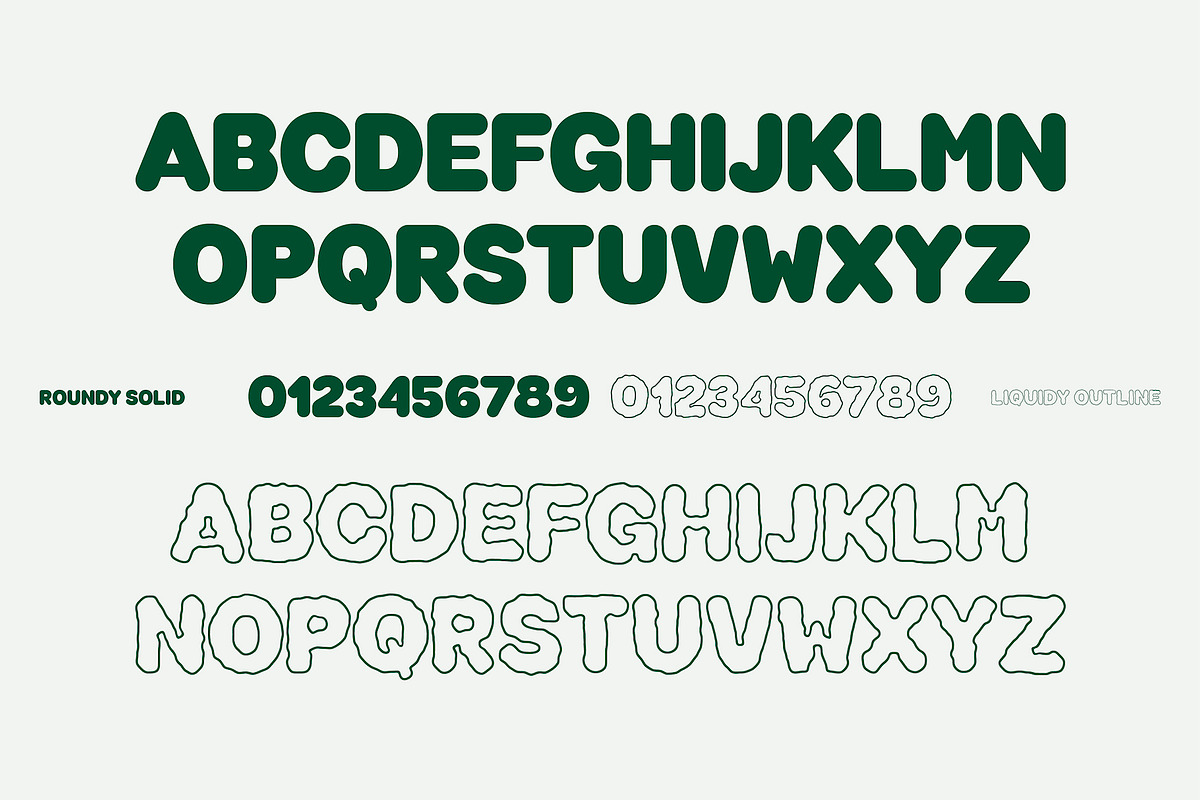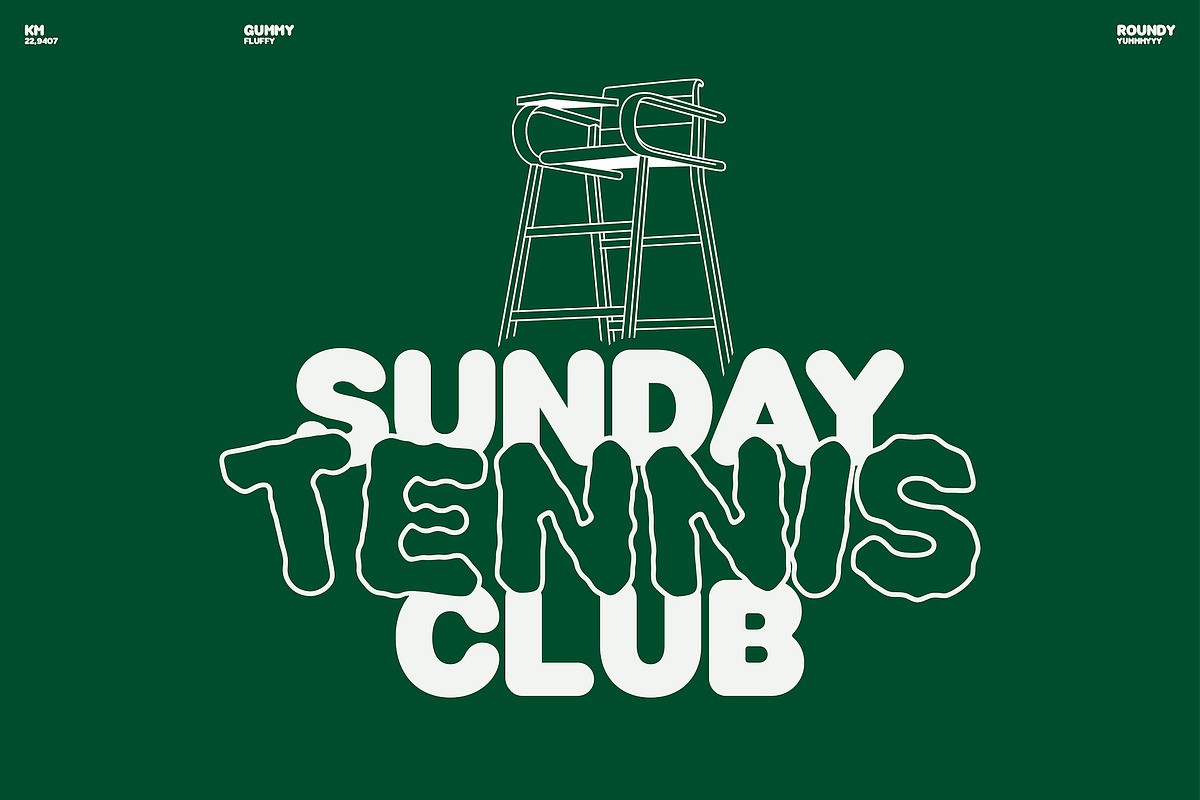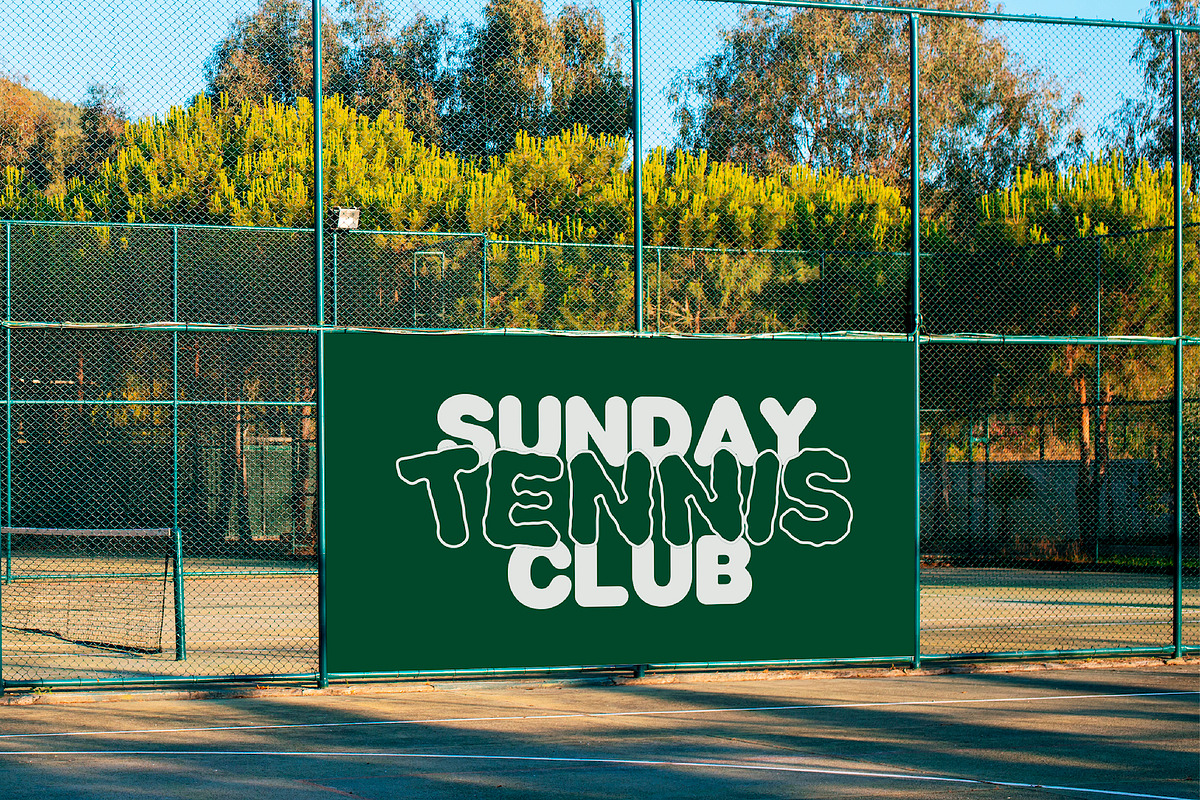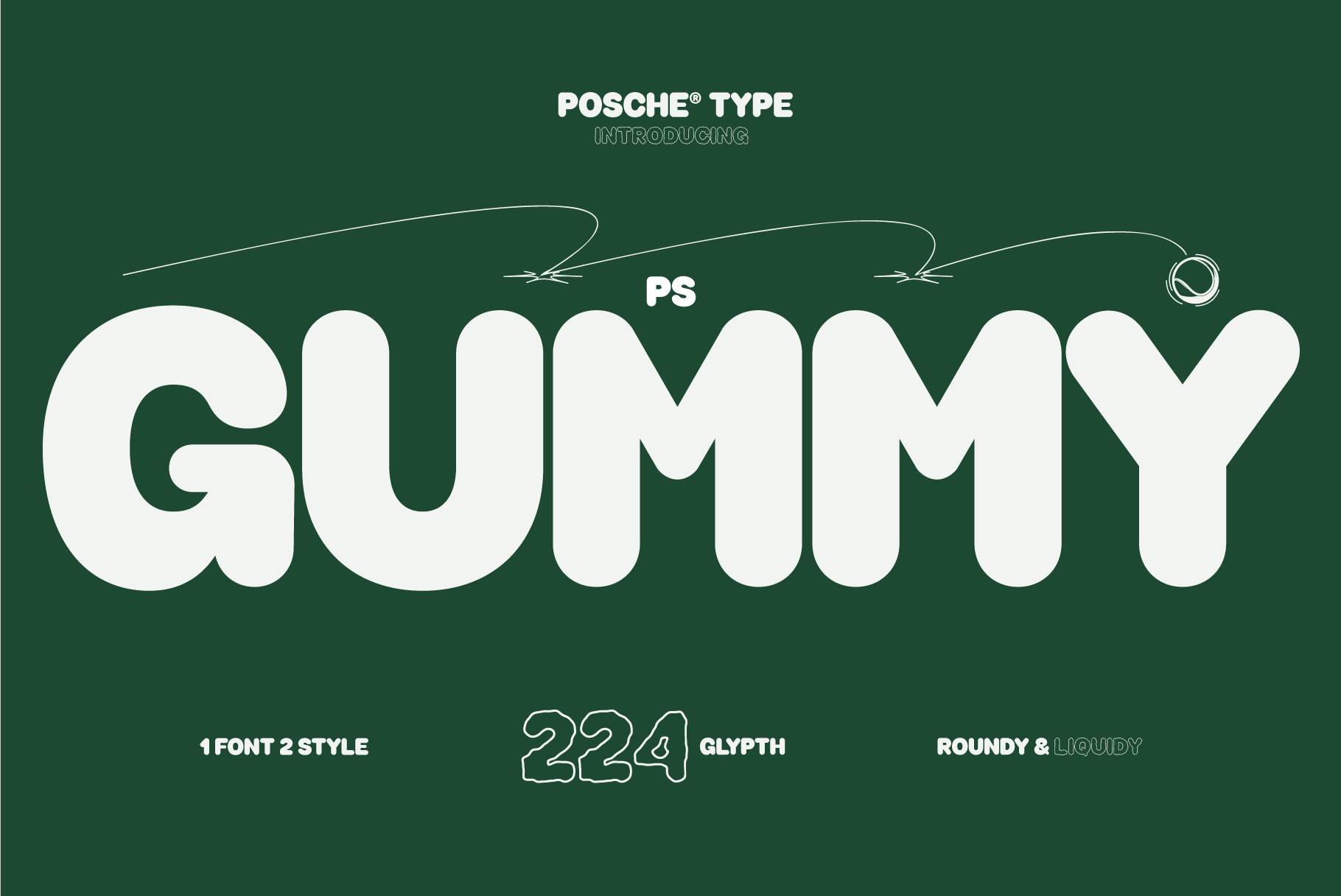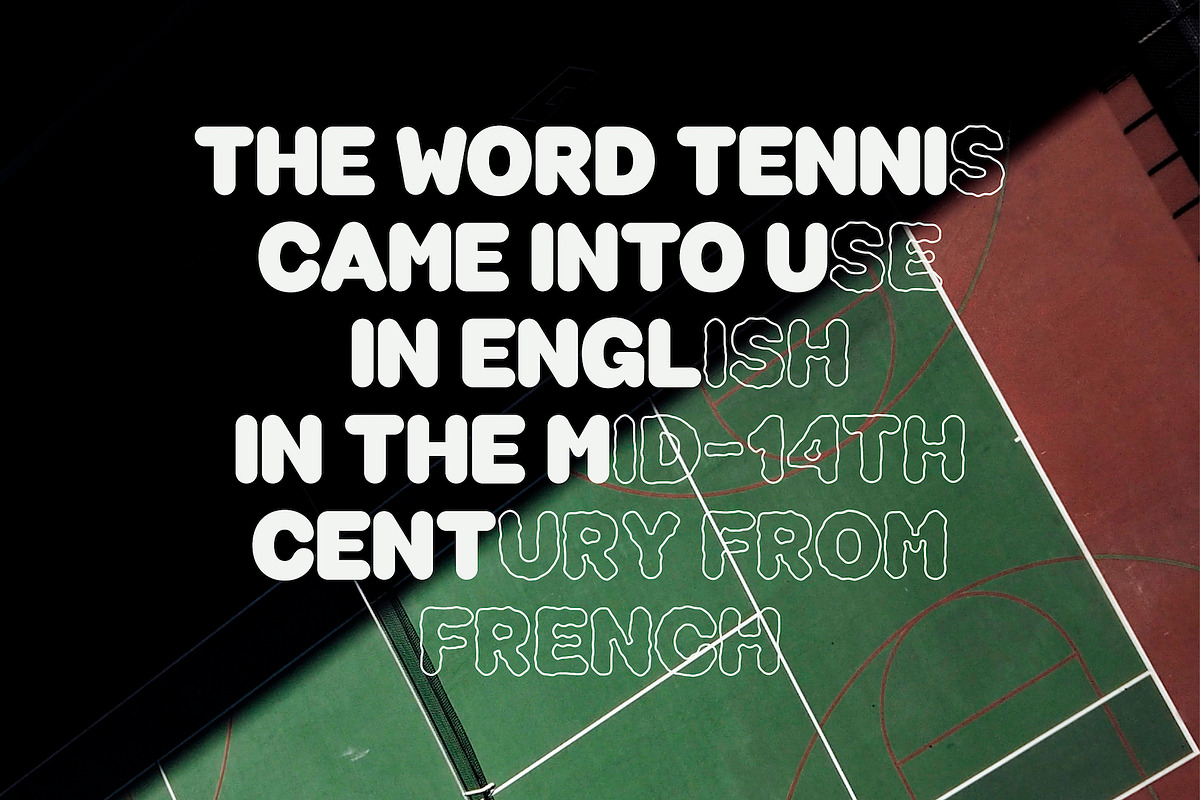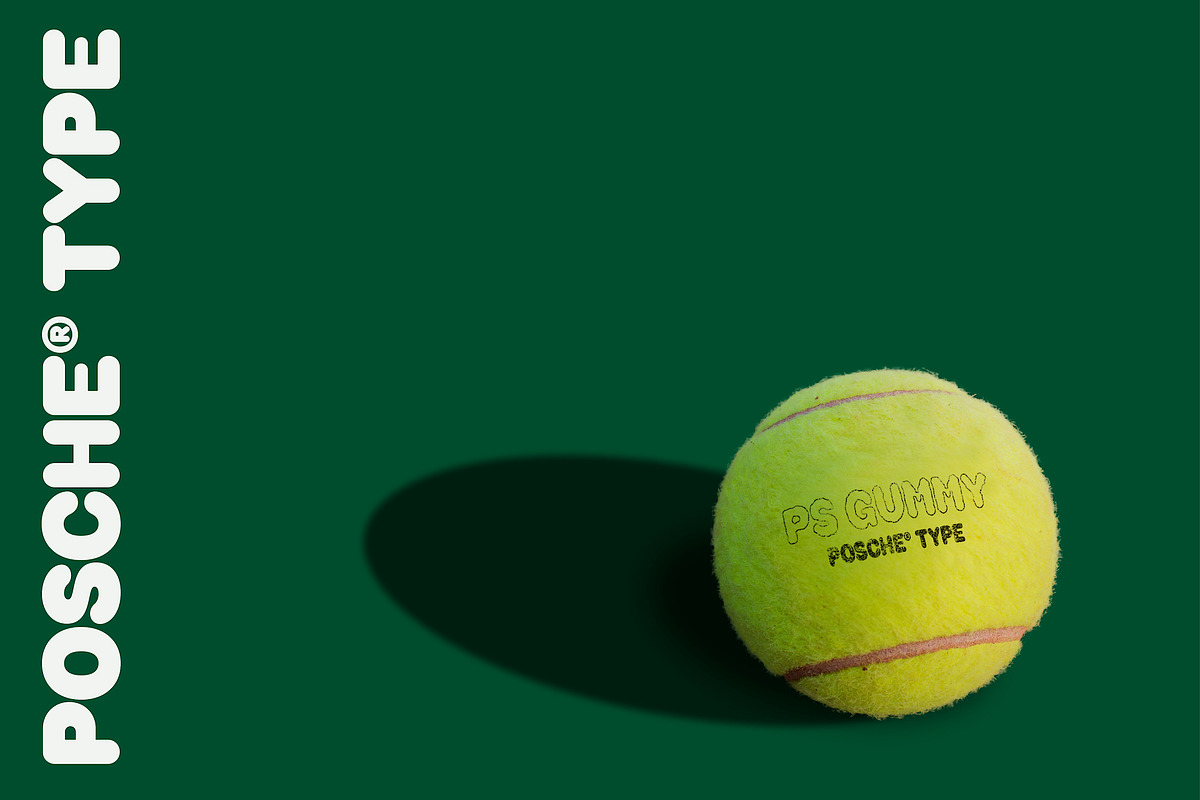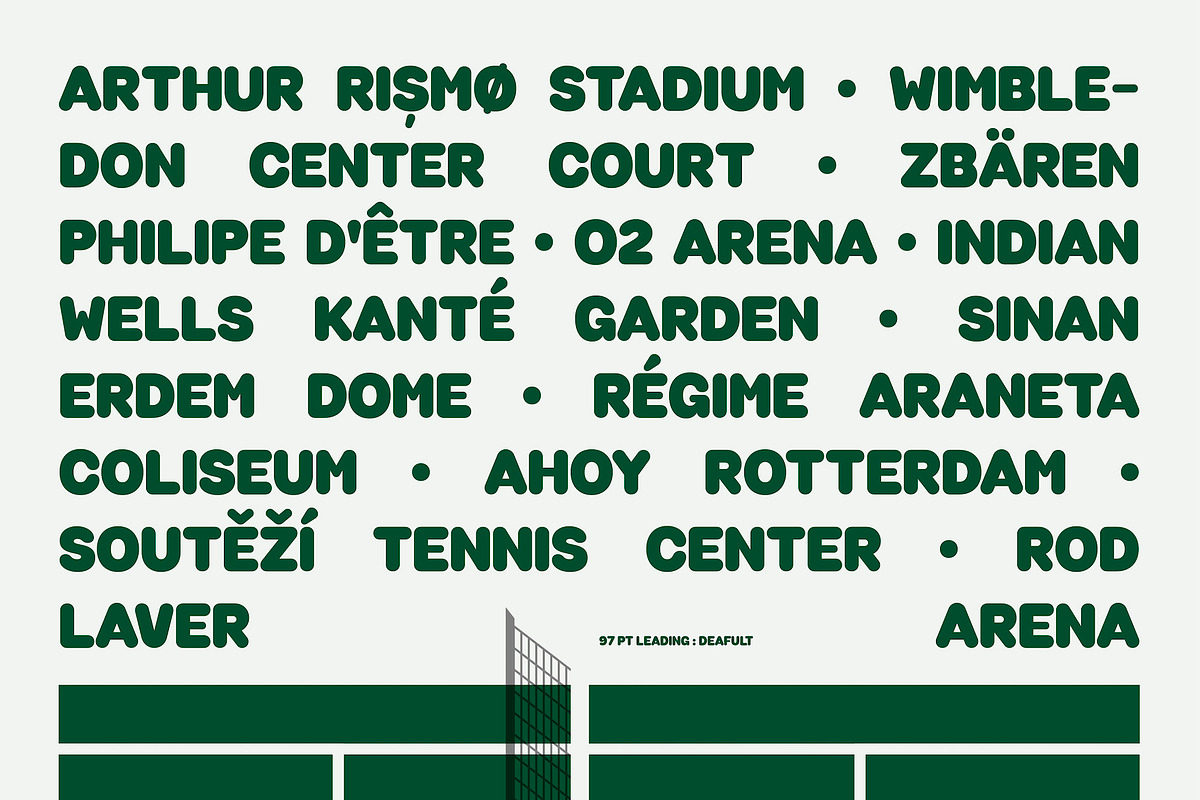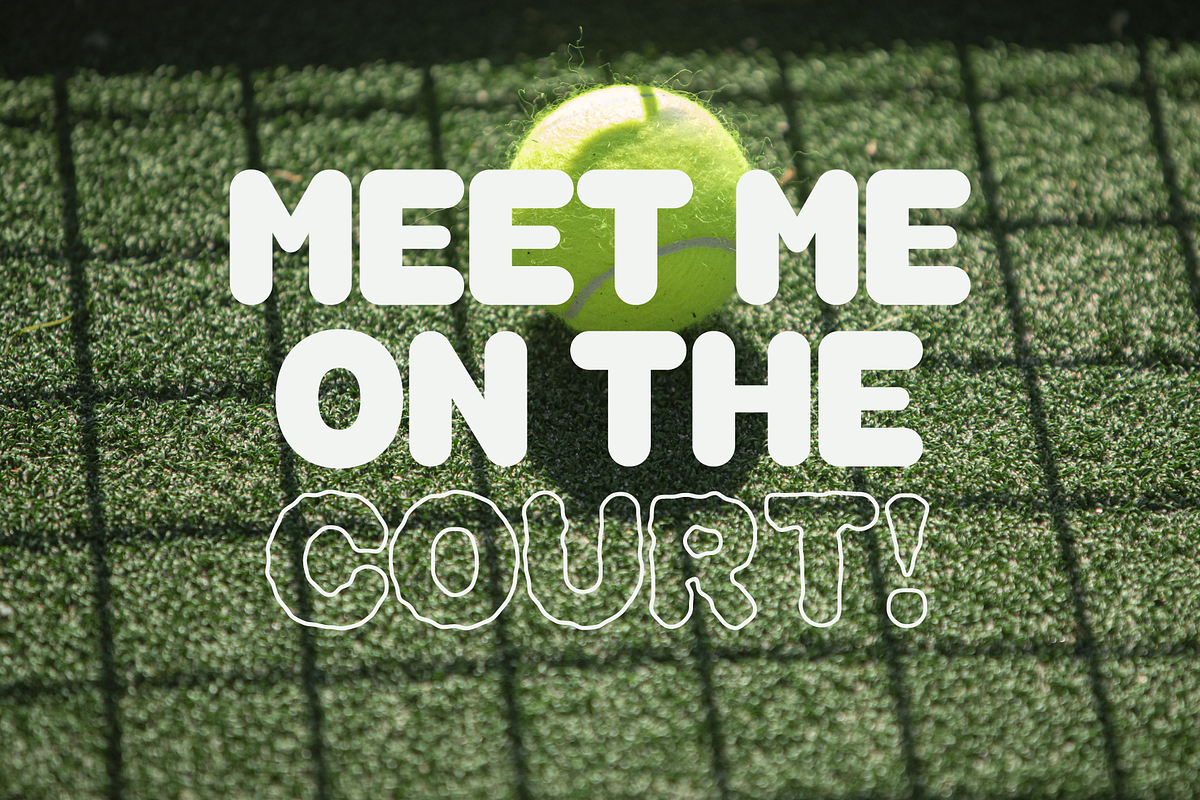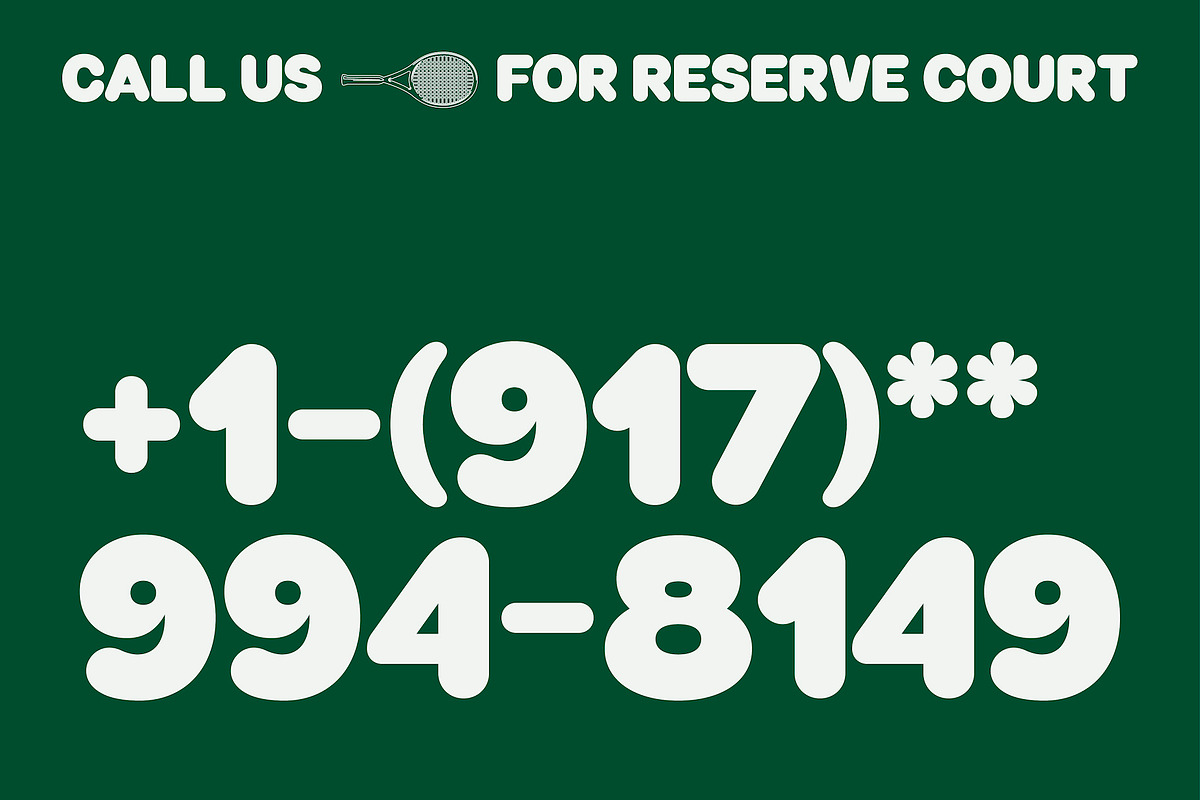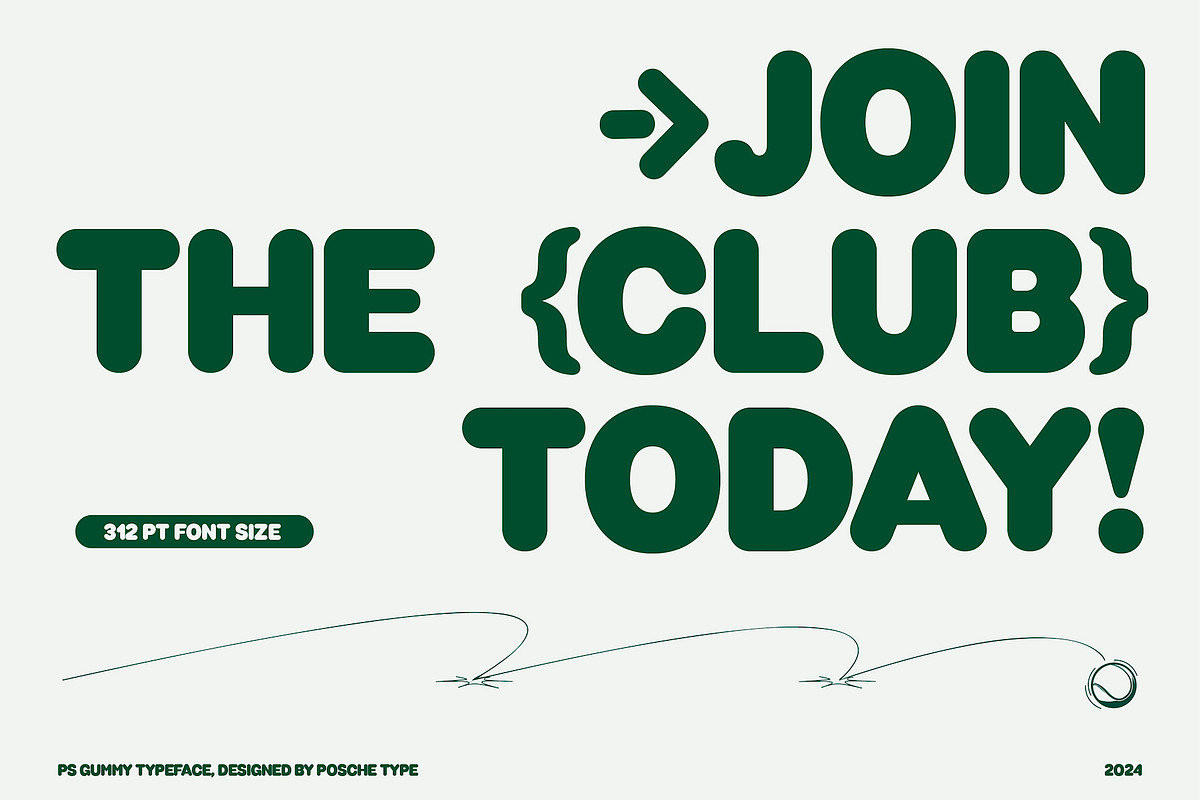
PS GUMMY | Display Typeface
PS GUMMY is a display font featuring two styles: PS GUMMY ROUNDY (Rounded) and PS GUMMY LIQUIDY (Handdraw Outline). It is ideal for applications in sporty themes, food and beverage, logo creation, posters, and various graphic design needs. The rounded style can give a playful, energetic feel, which is great for sports-related graphics, team logos, or event promotions. The liquidy outline style is perfect for food packaging, restaurant menus, or beverage labels, where a fun and appetizing appearance is key. For posters, the versatility of PS GUMMY can help create striking headlines or event names that stand out and attract attention.
The font’s distinct styles make it suitable for various design needs, from social media graphics to promotional materials.